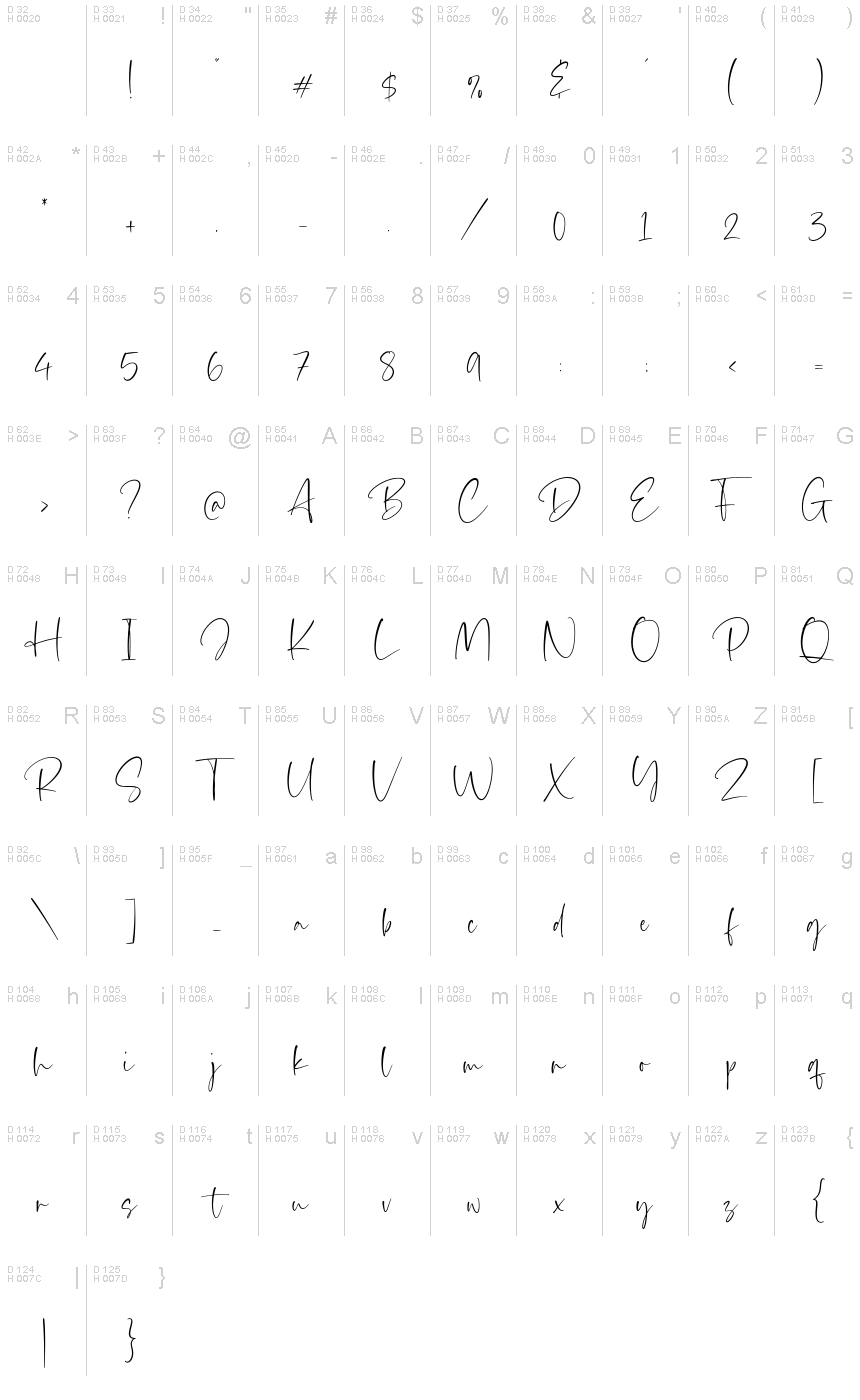
Sophia Marilyn
Sophia Marilyn, crafted by Timur Type, is a handwritten signature font that exudes elegance and a personal touch. Its light strokes flow with an effortless grace, capturing the charm of a bespoke signature. The gentle sway of its letters adds an intimate and sophisticated flair to any project.
Sophia Marilyn's aesthetic lends itself beautifully to branding materials, wedding invitations, and personalized stationery. It brings a touch of individuality to business cards or adds an artistic stroke to book covers. Wherever authenticity and style are paramount, Sophia Marilyn stands out as the perfect typographical companion.